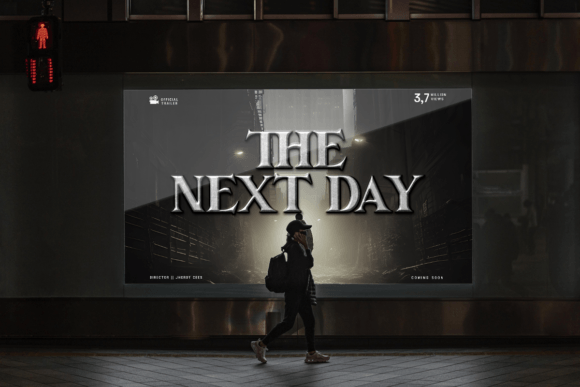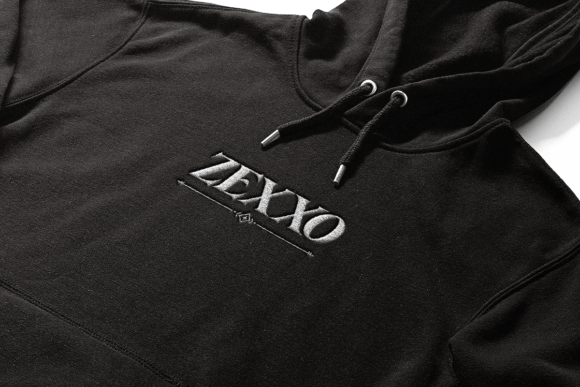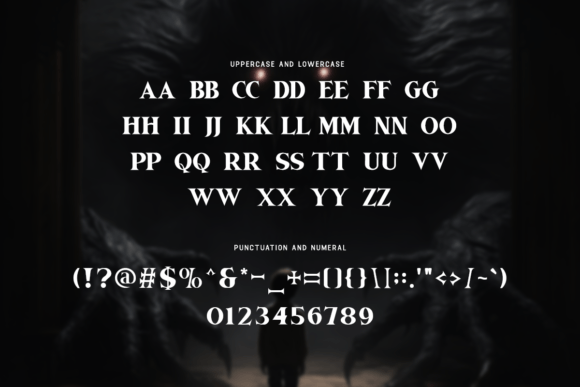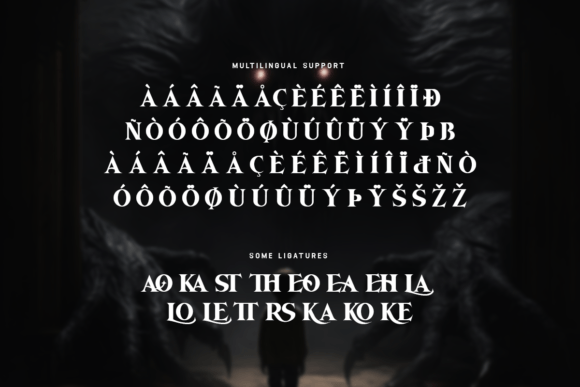
Aostala Font: Elevate Your Designs with Timeless Elegance
In the world of typography, few fonts manage to strike a balance between classic sophistication and modern flair. Aostala Font is one such exceptional typeface that seamlessly blends traditional elegance with contemporary style, making it an ideal choice for designers and crafters looking to add a touch of luxury to their projects.
The Essence of Aostala Font
Aostala is a stylish serif font that exudes refinement and poise. Its carefully crafted serifs and well-proportioned letterforms are designed to bring a sense of timeless beauty and grace to any design. Whether you’re working on branding, editorial projects, or luxury designs, Aostala is the perfect choice to elevate your work and make it stand out.
Key Features of Aostala Font
- Refined Serifs: Aostala’s serifs are meticulously designed to add a touch of sophistication to your designs. They bring a sense of classic elegance, making the font suitable for high-end branding and luxury projects.
- Well-Proportioned Letterforms: Each letterform in Aostala is carefully crafted to ensure perfect proportions, creating a harmonious and balanced look that enhances readability and aesthetic appeal.
- Timeless Beauty: Aostala’s design is rooted in traditional typography, yet it carries a modern touch that makes it versatile for various design applications.
- Versatility: This font is perfect for a wide range of projects, including branding, editorial work, packaging, and more. Its elegance and sophistication make it suitable for designs that require a high level of refinement.
Applications of Aostala Font
Aostala’s versatility makes it an excellent choice for various design projects. Here are some of the ideal applications for this stylish serif font:
- Branding: Use Aostala to create luxurious brand identities that convey elegance and sophistication. Its refined serifs and classic look make it perfect for high-end brands.
- Editorial Design: Enhance your editorial projects, such as magazines, newspapers, and books, with Aostala’s timeless beauty. Its readability and aesthetic appeal make it a great choice for body text and headlines.
- Luxury Designs: Whether you’re designing packaging, advertising materials, or high-end product labels, Aostala brings a touch of class and sophistication that elevates your designs.
Why Choose Aostala Font?
In a world where typography plays a crucial role in design, choosing the right font can make all the difference. Here are some reasons why Aostala stands out:
- Elegance: Aostala’s classic elegance sets it apart from more modern, minimalist fonts. It brings a sense of tradition and heritage to your designs.
- Legibility: The well-proportioned letterforms and refined serifs ensure that Aostala is not only beautiful but also highly legible, making it suitable for both headings and body text.
- Versatility: Aostala can be used in a variety of contexts, from digital platforms to print materials, ensuring consistency across different mediums.
Aostala Font is a stylish serif typeface that brings a perfect blend of classic elegance and modern sophistication to your designs. Its refined serifs, well-proportioned letterforms, and timeless beauty make it an ideal choice for designers and crafters looking to add a touch of luxury to their projects. Whether you’re working on branding, editorial designs, or luxury projects, Aostala is sure to elevate your work and make it stand out. With its versatility and legibility, Aostala is a valuable addition to any designer’s font collection.